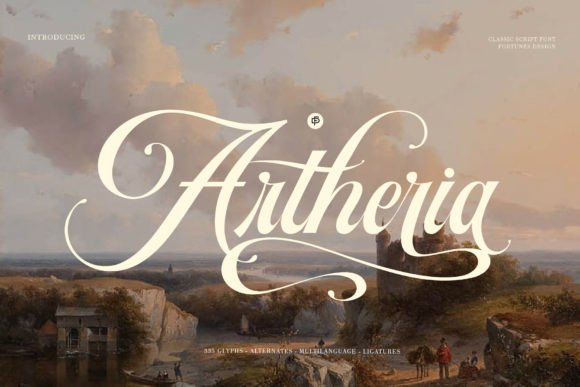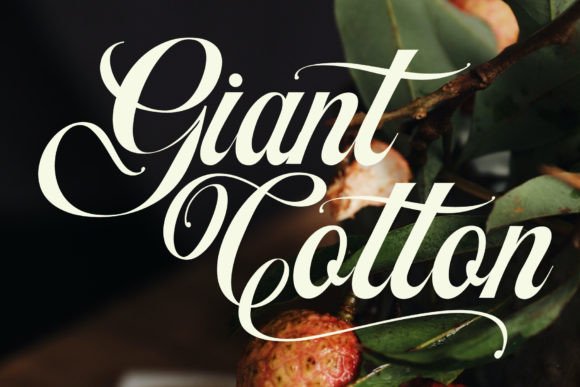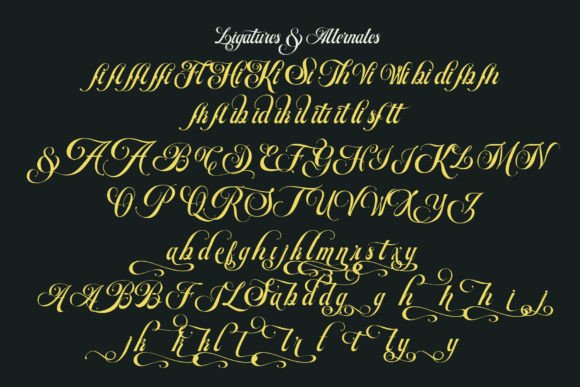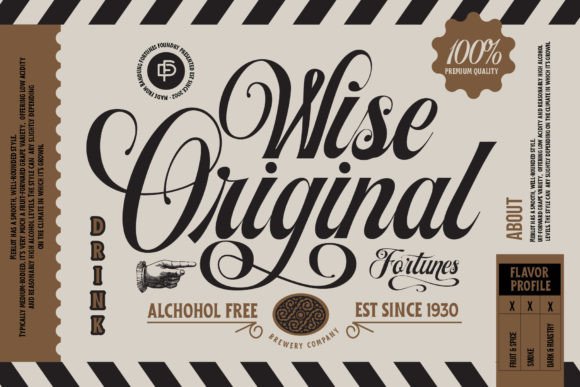
Artheria Font
About the Artheria Font
From logos to headlines, the Artheria Font is the perfect choice for making a lasting impression. Artheria is a script font with a classic vintage style. The classic style of this font is suitable for retro/vintage-themed designs but can also be used for designs with other styles.
Artheria’s elegant, yet slightly playful vintage style makes it ideal for logos, short headlines, invitations, and packaging designs requiring a touch of classic charm. It works exceptionally well for projects emphasizing a retro aesthetic or a sophisticated, timeless feel. However, its intricate details make it unsuitable for body text or UI elements where readability is paramount. Avoid using it in long paragraphs or small sizes.
Pairing Artheria with a clean sans-serif like Open Sans for body copy creates a balanced and legible contrast. For a more vintage-inspired feel, consider pairing it with a complementary serif font such as Playfair Display. A geometric sans-serif, such as Montserrat, offers a modern counterpoint, highlighting Artheria’s classic charm.
Artheria projects an overall air of sophisticated playfulness. Its vintage appeal works best for brands aiming for a retro-chic or classic-with-a-twist image, avoiding applications needing a strictly modern or minimalist aesthetic.
Artheria Font Usage Examples
Artheria Font Example